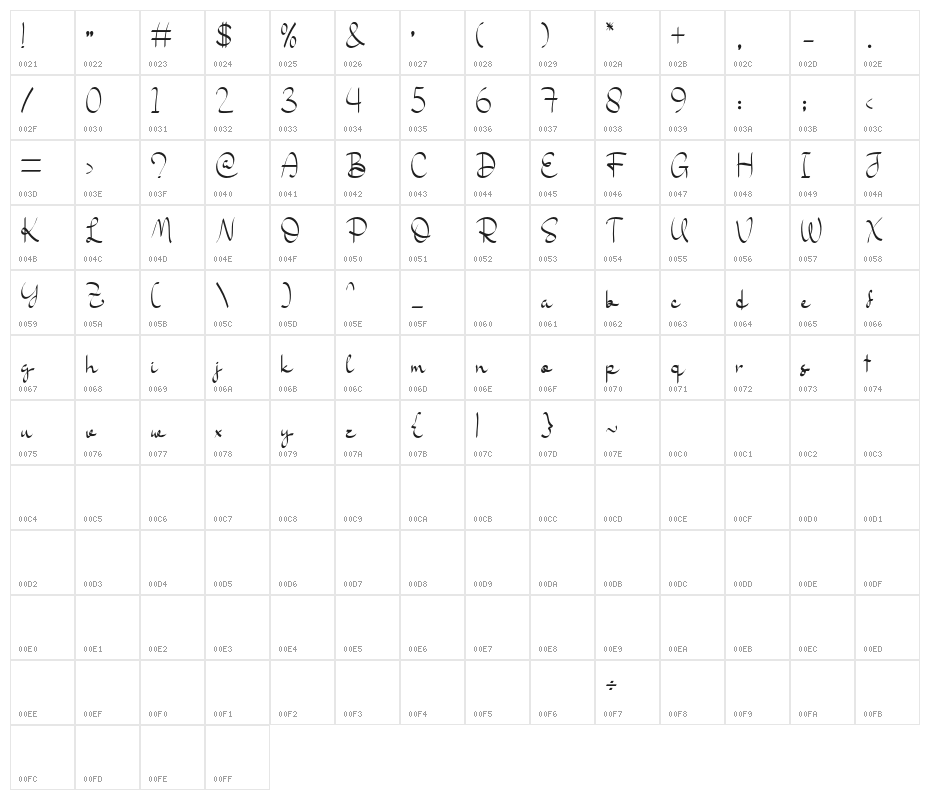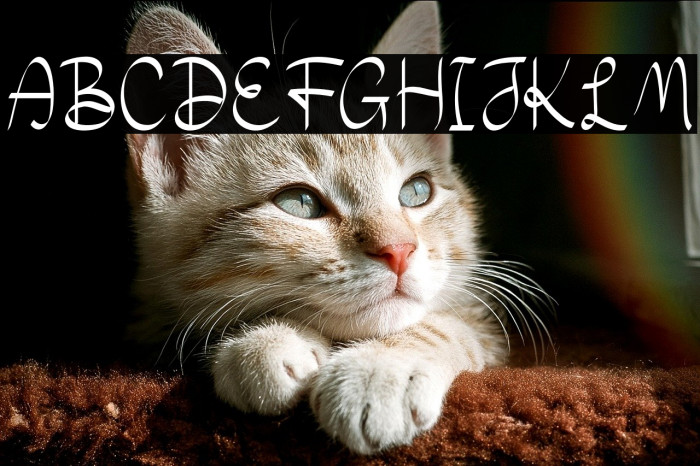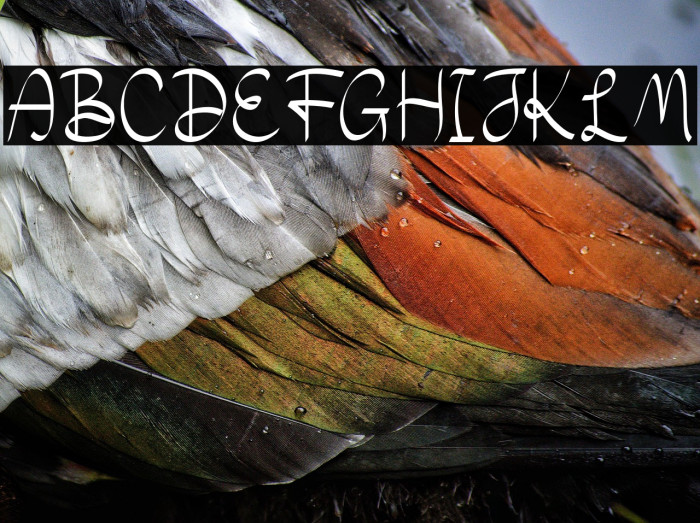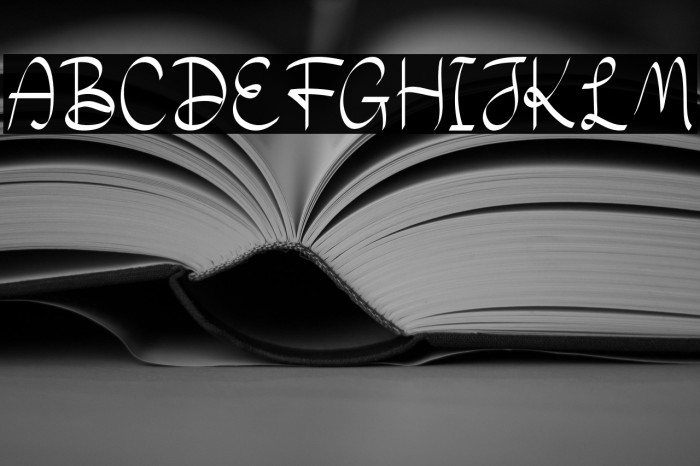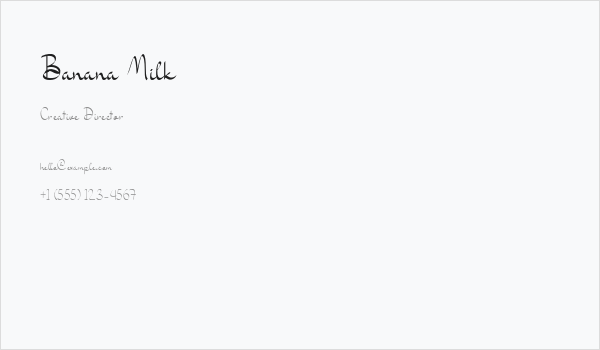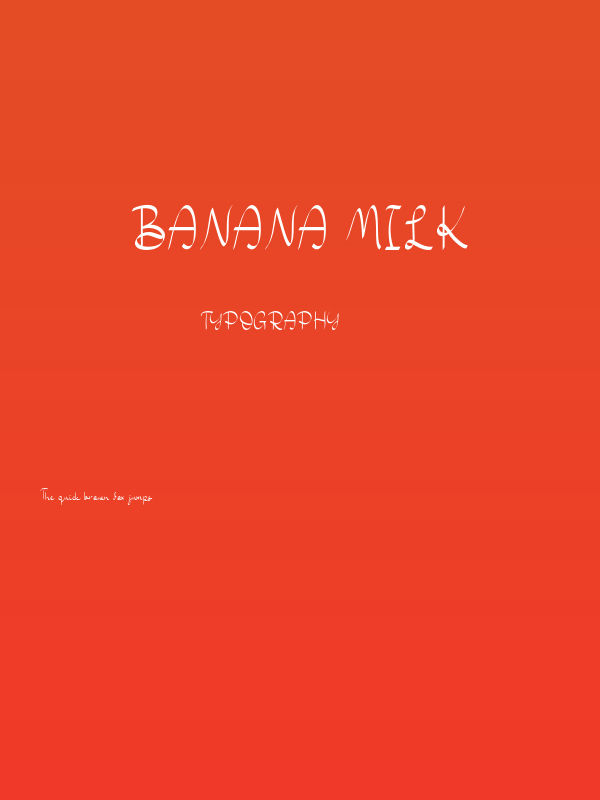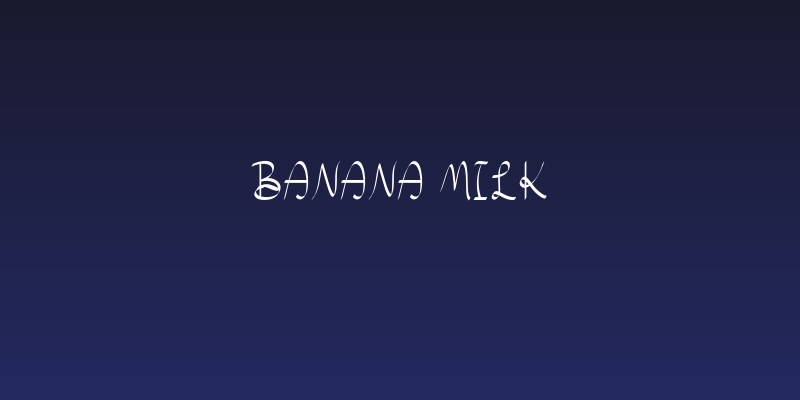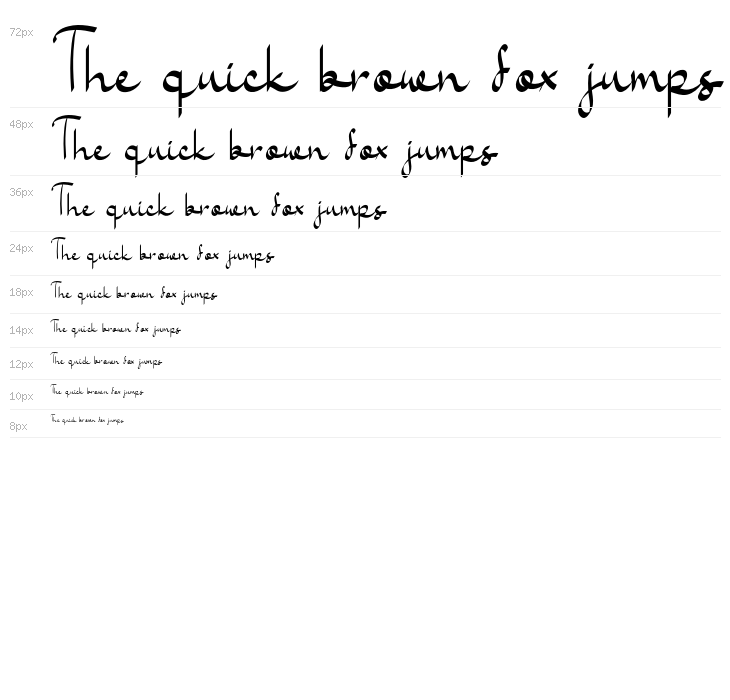
Banana Milk Font
Banana Milk Description
This font features a playful and whimsical script style, characterized by its fluid and flowing letterforms. The uppercase letters exhibit a unique blend of curves and sharp angles, creating a dynamic and lively appearance. The lowercase letters maintain a consistent flow, with some characters having distinctive loops and swashes that add to the font's charm. The numerals are bold and slightly exaggerated, matching the overall playful aesthetic. Special characters are creatively designed, maintaining the font's cohesive style. This font is well-suited for projects that require a touch of elegance and playfulness, such as invitations, greeting cards, and branding materials.
| Use Case | Headlines, Logos, Decorative text |
| Proposed Projects | Ideal for invitations, greeting cards, playful branding, and decorative purposes. |